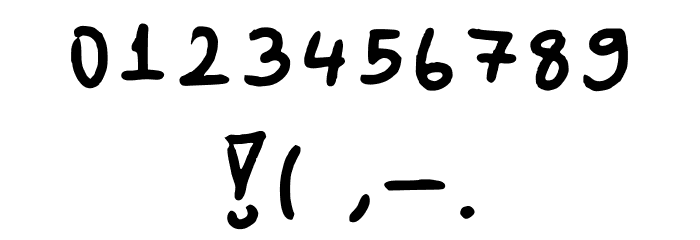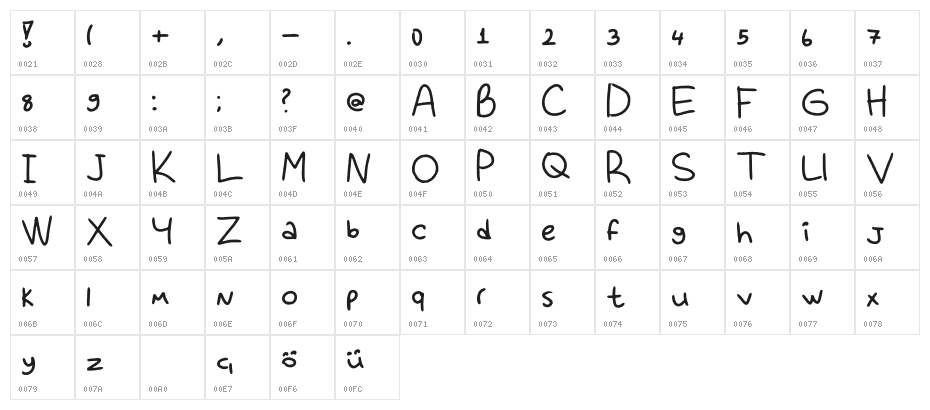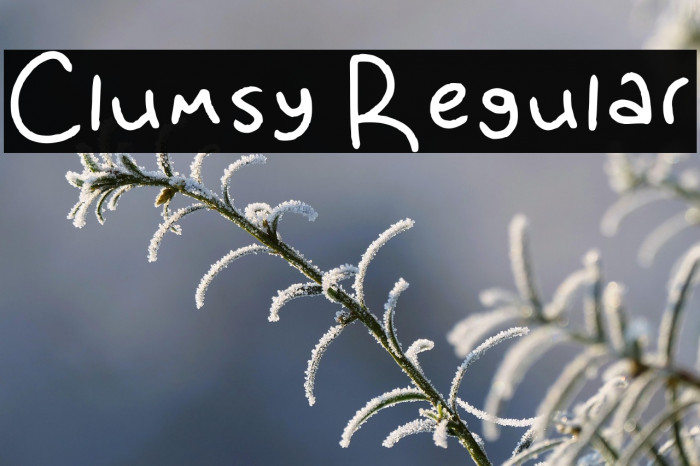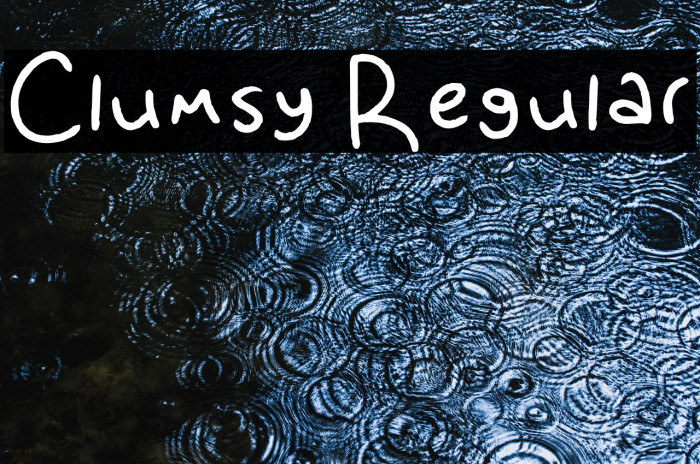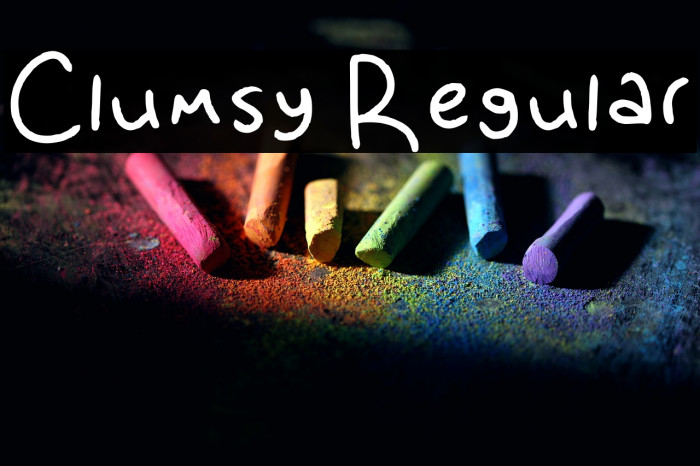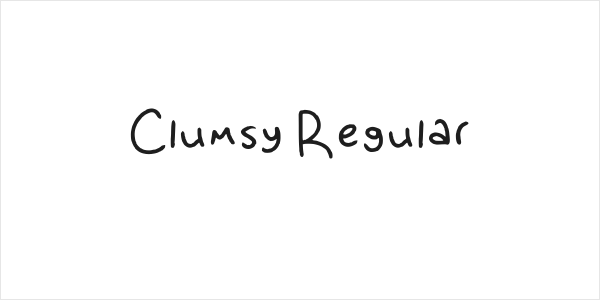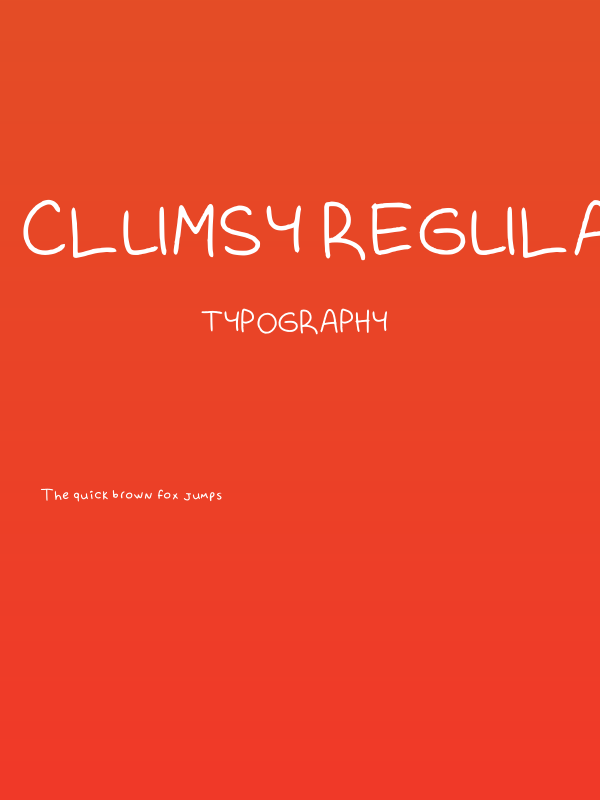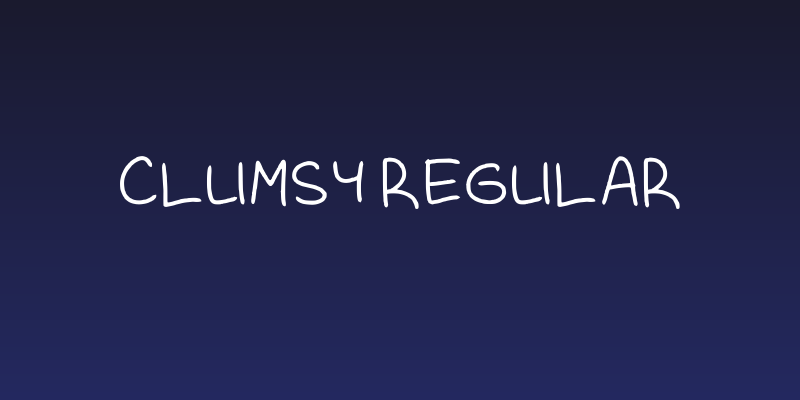
Clumsy Regular Font
Clumsy Regular Description
This playful and informal font features a handwritten style with a slightly irregular and whimsical appearance. The characters have a casual, friendly vibe, with rounded edges and varying stroke widths that add to its charm. The uppercase and lowercase letters maintain a consistent style, while the numerals and special characters complement the overall look. This font is perfect for projects that require a personal touch, such as invitations, greeting cards, or children's books. Its unique style makes it stand out while remaining legible and approachable.
Overall StyleCasual, Playful
Use CaseHeadlines, Informal text, Creative projects
Proposed ProjectsIdeal for invitations, greeting cards, children's books, and personal projects.